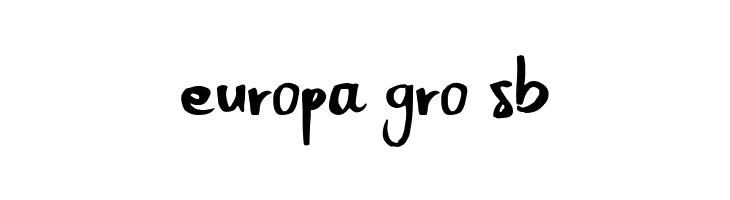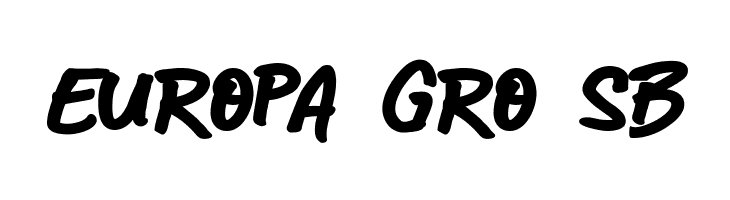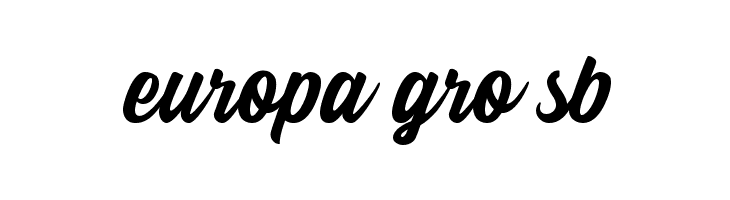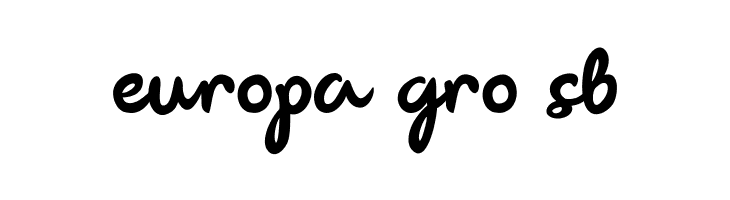
• Breakout
( Lettersiro Studio - Muhammad Sirojuddin - creativemarket.com/Lettersiro )
A bold, handwritten font with dynamic strokes and a playful style.
• Brieston
( Lettersiro Studio - Muhammad Sirojuddin - creativemarket.com/Lettersiro )
A bold, dynamic script font with a handwritten style.
• Butter Layer
( Lettersiro Studio - Muhammad Sirojuddin - creativemarket.com/Lettersiro )
A bold, playful font with a whimsical, retro aesthetic.
• Calling Heart
( Lettersiro Studio - Muhammad Sirojuddin - creativemarket.com/Lettersiro )
A bold, elegant script font with flowing, interconnected letters.
• Dillova
( Lettersiro Studio - Muhammad Sirojuddin - creativemarket.com/Lettersiro )
A playful, bold script font with a handwritten feel.
• Gojira Black
( Lettersiro Studio - Muhammad Sirojuddin - creativemarket.com/Lettersiro )
A bold, brush-style font with dynamic and expressive strokes.
• Good Sunday
( Lettersiro Studio - Muhammad Sirojuddin - creativemarket.com/Lettersiro )
A bold, playful font with rounded edges and a modern-retro style.
• Grooving Textured
( Lettersiro Studio - Muhammad Sirojuddin - creativemarket.com/Lettersiro )
A bold, textured font with a distressed, vintage style.
• Honey Butter
( Lettersiro Studio - Muhammad Sirojuddin - creativemarket.com/Lettersiro )
A playful and whimsical script font with a hand-drawn aesthetic.
• Hunters
( Lettersiro Studio - Muhammad Sirojuddin - creativemarket.com/Lettersiro )
A bold, flowing script font with elegant, cursive letterforms.